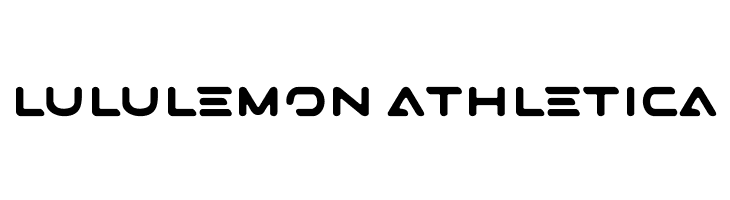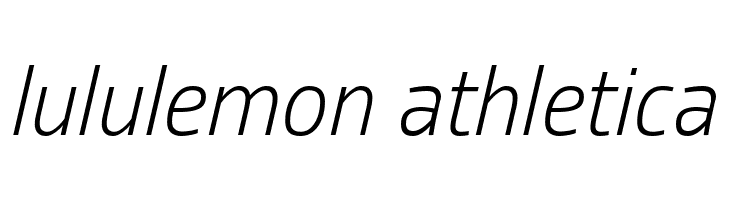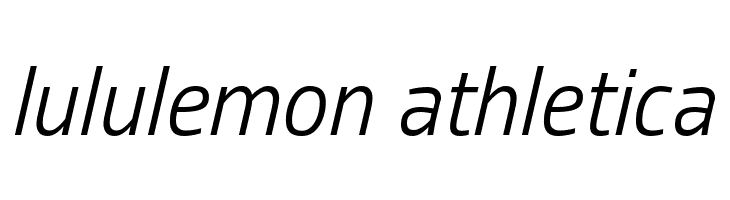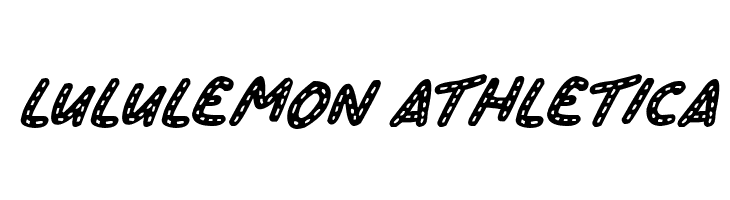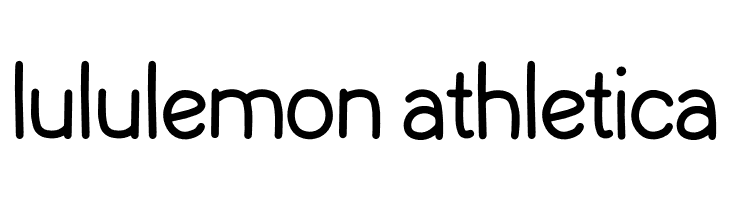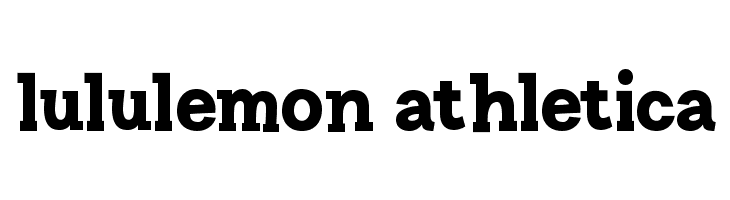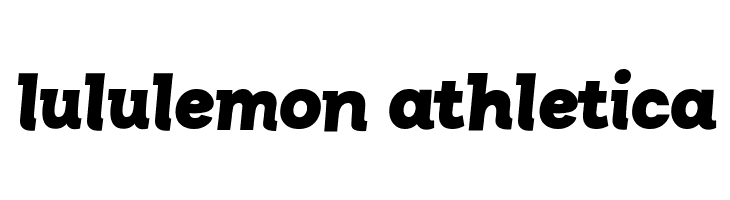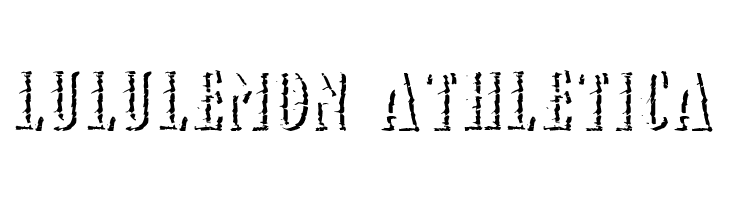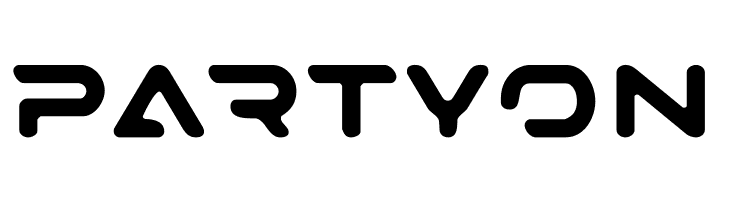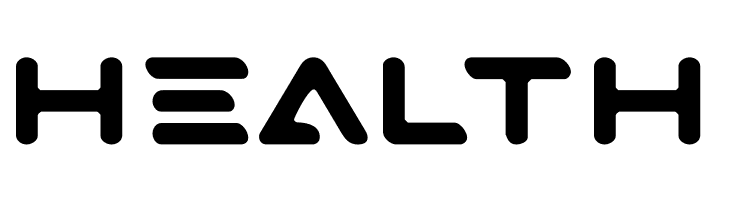
A futuristic, stencil-like font with bold, rounded characters and consistent stroke thickness.
A playful, handwritten font with rounded, uniform strokes and a casual vibe.
A playful, stitched-pattern font with a handcrafted feel.
A playful, italicized font with a stitched pattern and bold strokes.
A rugged, distressed font with a bold and textured appearance.
A modern, extra light sans-serif italic font with a sleek and elegant style.
A modern, light, italic sans-serif font with sleek, fluid lines.
A bold, modern sans-serif font with strong, clean lines.
A bold, italicized sans-serif font with a modern and dynamic style.
A bold, heavy italic sans-serif font with a modern and dynamic style.